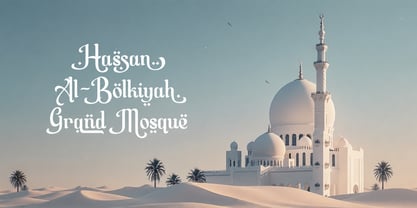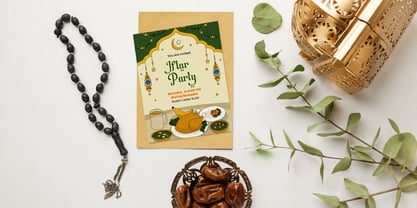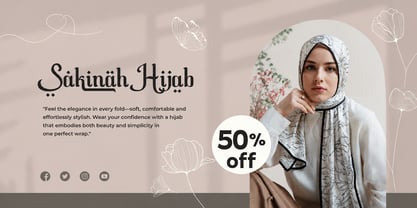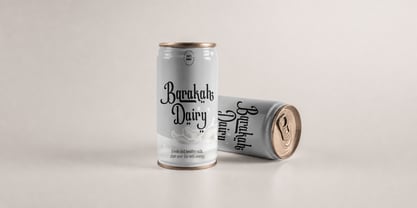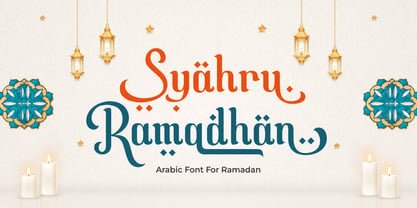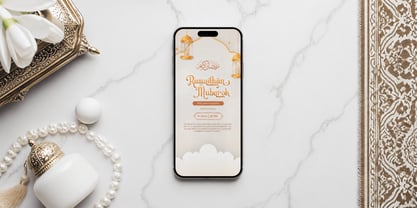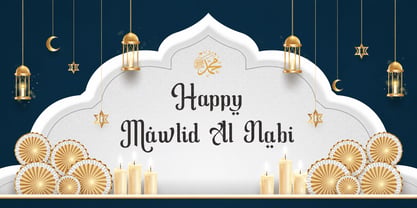
Syahru Ramadhan
The Syahru Ramadhan Font Family was designed by Faizul Muna and published by Unitype Studio. Syahru Ramadhan contains 1 styles. More about this family
Syahru Ramadan – Islamic Font
Discover the beauty of Syahru Ramadan, a graceful handwritten calligraphy font created to celebrate the spirit and elegance of Islamic traditions. Inspired by the artistic heritage of Islamic lettering, this font features flowing strokes, elegant curves, and refined details that reflect both spirituality and creativity. Syahru Ramadan blends traditional calligraphic influence with modern typography, making it a beautiful choice for meaningful and festive design projects.
Designed to capture the atmosphere of sacred celebrations, Syahru Ramadan is perfect for typography related to Ramadan, Eid al-Fitr, Eid al-Adha, Islamic New Year, and Maulid. Its smooth handwritten style brings warmth and authenticity to invitations, greeting cards, banners, and decorative typography used during these special occasions. The font helps create designs that feel spiritual, elegant, and visually inspiring.
Syahru Ramadan includes more than 100 alternate characters and stylistic variations, giving designers the freedom to create expressive and unique lettering compositions. These alternates allow you to combine characters in different ways, producing beautiful calligraphic layouts that feel natural and artistic while maintaining excellent readability.
This font is also ideal for Islamic branding and digital content creation. Designers can use Syahru Ramadan for Ramadan social media graphics, mosque event posters, Islamic merchandise, promotional banners, and religious quotes. Its refined handwritten character helps deliver messages with a sense of elegance, celebration, and cultural authenticity.
Syahru Ramadan performs beautifully across both print and digital media, ensuring that designs remain clear, decorative, and engaging across various platforms. Whether used for elegant invitations, Islamic event materials, or social media visuals, the font enhances every design with a touch of spirituality and artistic charm.
Key Features
Islamic Handwritten Calligraphy Style
Elegant script inspired by traditional Islamic calligraphy.
100+ Alternate Characters
Extensive stylistic alternates for expressive typography.
Elegant & Spiritual Design
Perfect for Ramadan and other Islamic celebrations.
Versatile Typography
Suitable for invitations, branding, merchandise, and event materials.
Multilingual Support
Extended characters for international design use.
Perfect For
• Ramadan & Eid Greeting Designs
• Islamic Event Invitations & Posters
• Mosque Announcements & Banners
• Social Media Graphics & Campaigns
• Islamic Merchandise & Packaging
• Religious Quotes & Typography Art
Additional Features
Celebrate Islamic traditions with Syahru Ramadan – Handwritten Calligraphy Font.